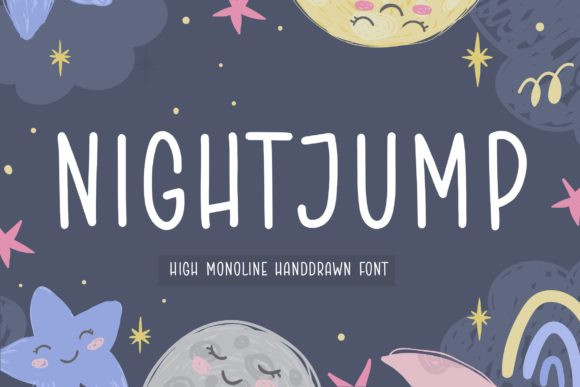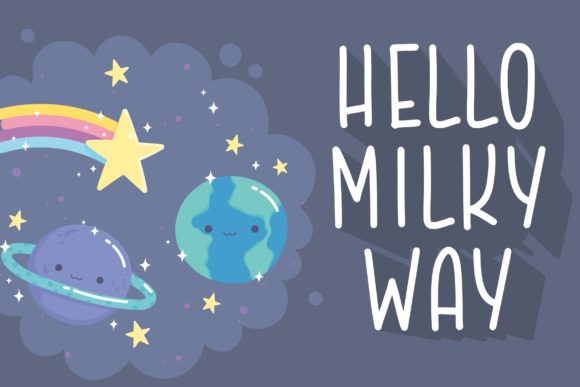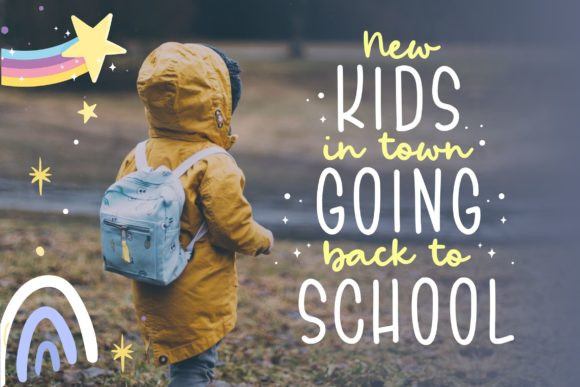
Night Jump Font
Night Jump is a handwritten font with a casual look. It is perfect for product packaging, branding project, magazine, social media, wedding, or just used to express words above the background.